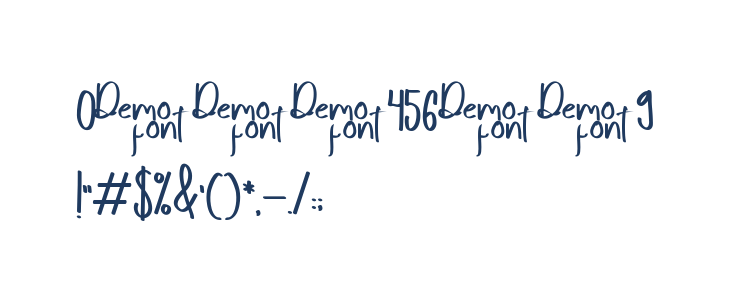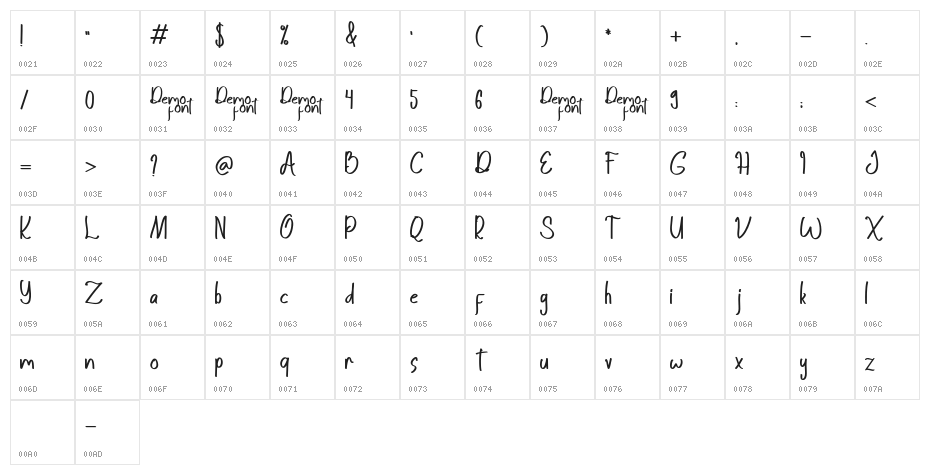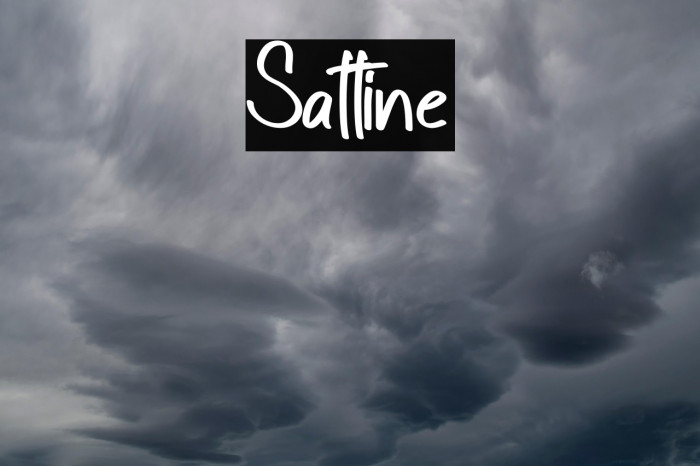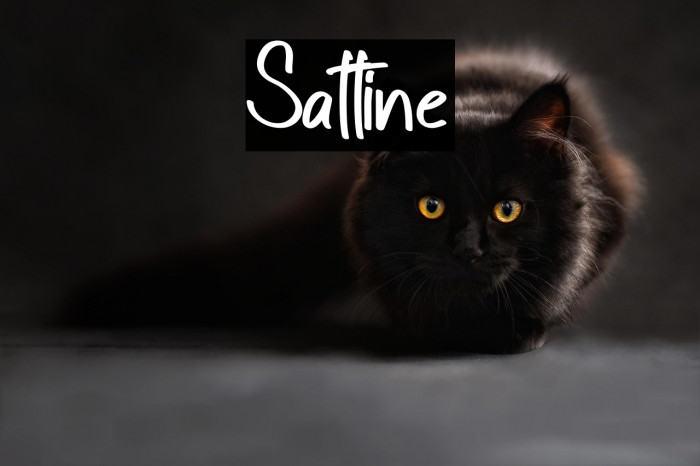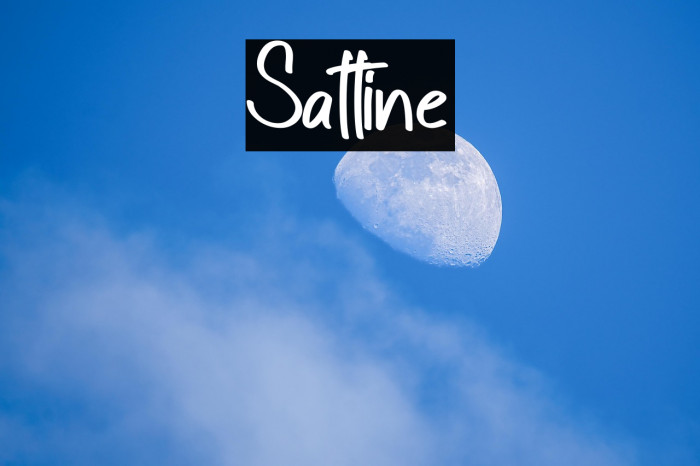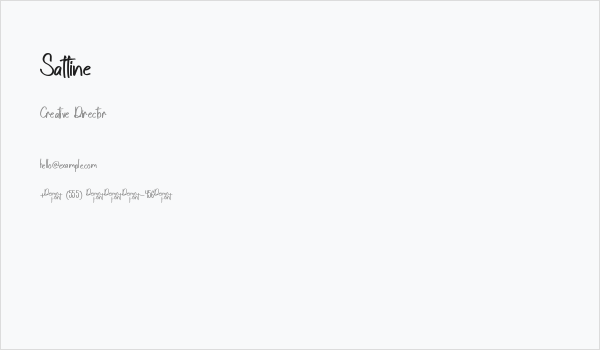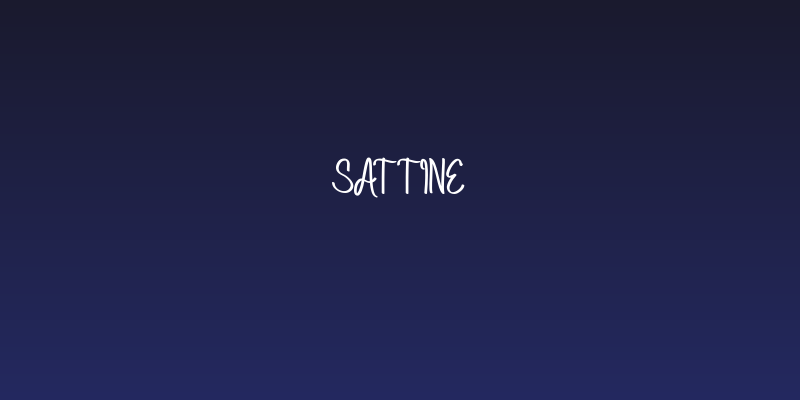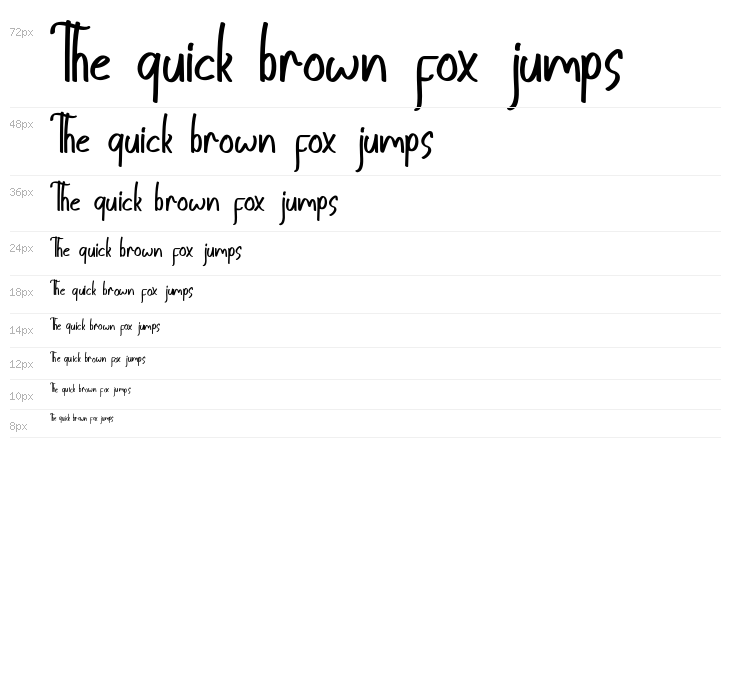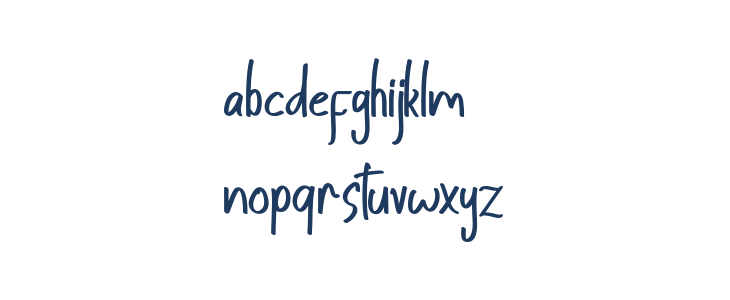
Sattine Font
Sattine Description
This font features a playful and whimsical handwritten style, characterized by its flowing and slightly irregular letterforms. The uppercase letters are bold and expressive, with a slight slant that adds to the dynamic feel. The lowercase letters maintain the same playful quality, with unique curves and loops that give the font a lively personality. Numbers and special characters are consistent with this style, ensuring a cohesive look across all text. The font's overall appearance is casual yet stylish, making it suitable for projects that require a personal touch.
| Proposed Projects | Ideal for greeting cards, invitations, children's books, and creative branding projects. |